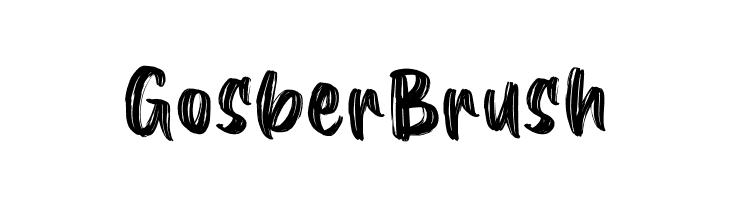
A bold, expressive brush-style font with dynamic strokes and a hand-painted look.
A playful, cursive script font with a friendly and relaxed style.
A bold, slanted font with a dynamic, futuristic style.
A bold, jagged font with a horror-inspired, distressed style.
A lively, handwritten font with expressive strokes and a playful yet sophisticated style.
A bold, brush-style font with dynamic, angular strokes and a hand-painted look.
A dot matrix style font with a retro digital display aesthetic.
A bold, playful, hand-drawn font with thick, uneven strokes and a whimsical style.
A bold, dot matrix style font with a modern, digital aesthetic.
A bold, playful handwritten font with a lively and modern style.